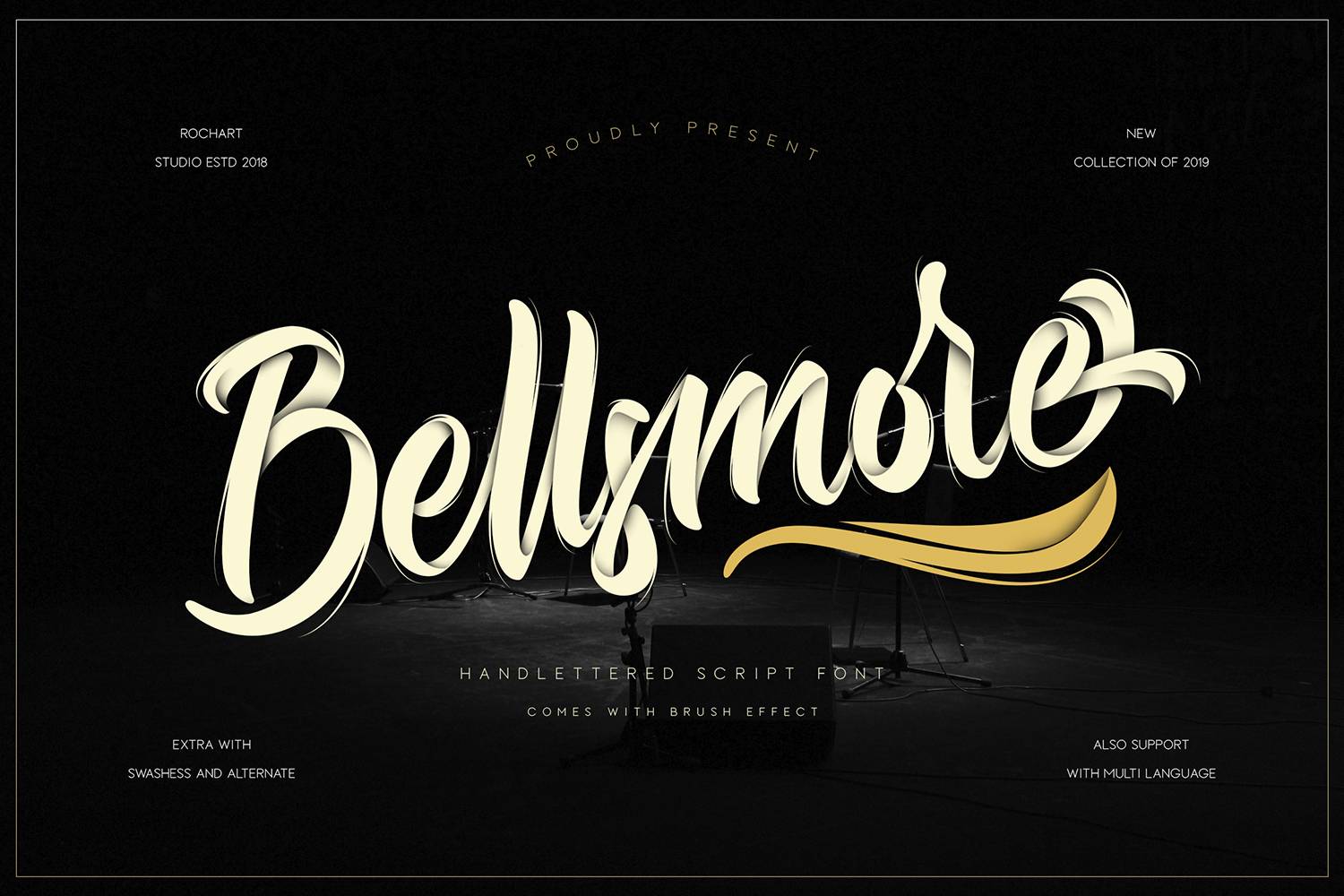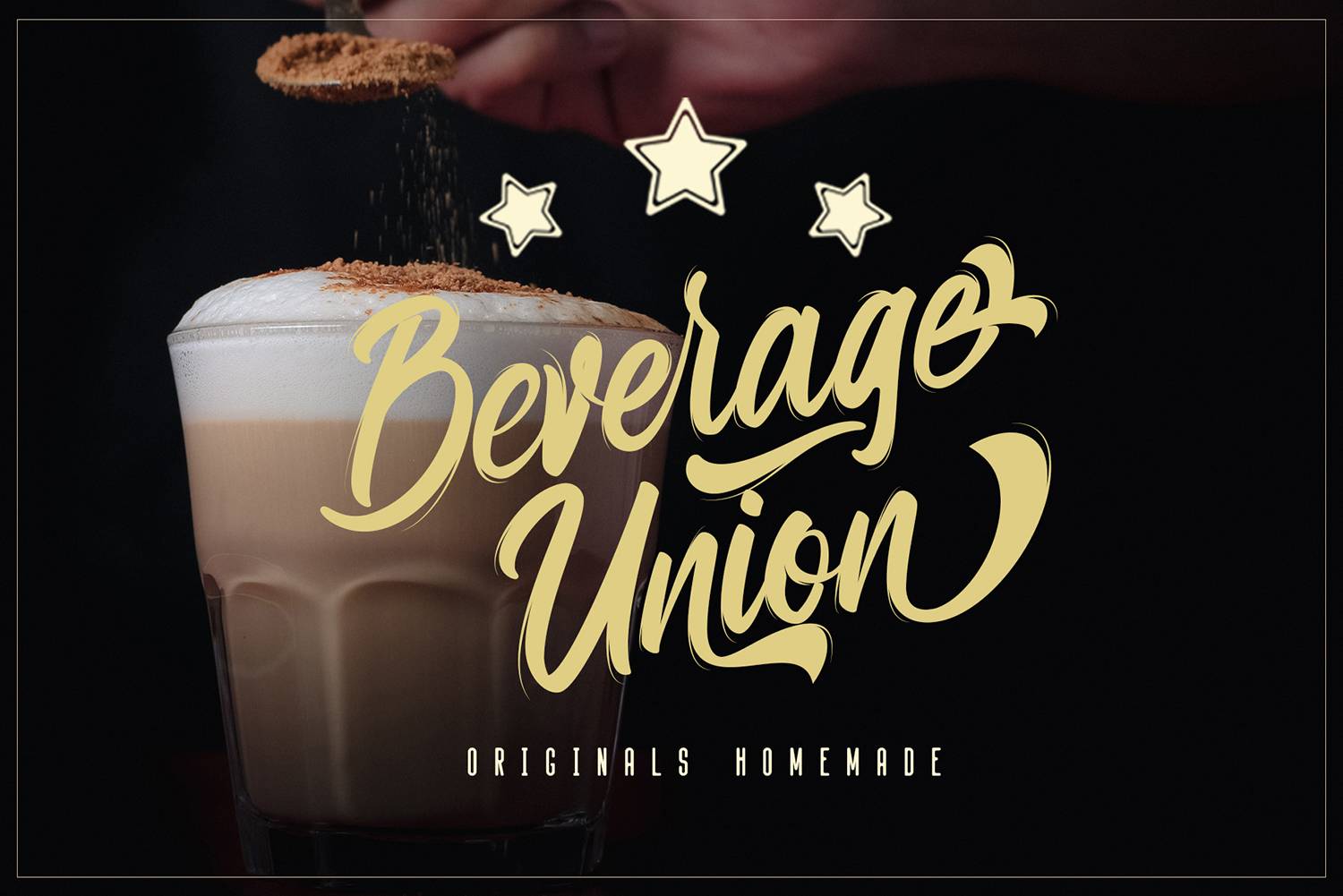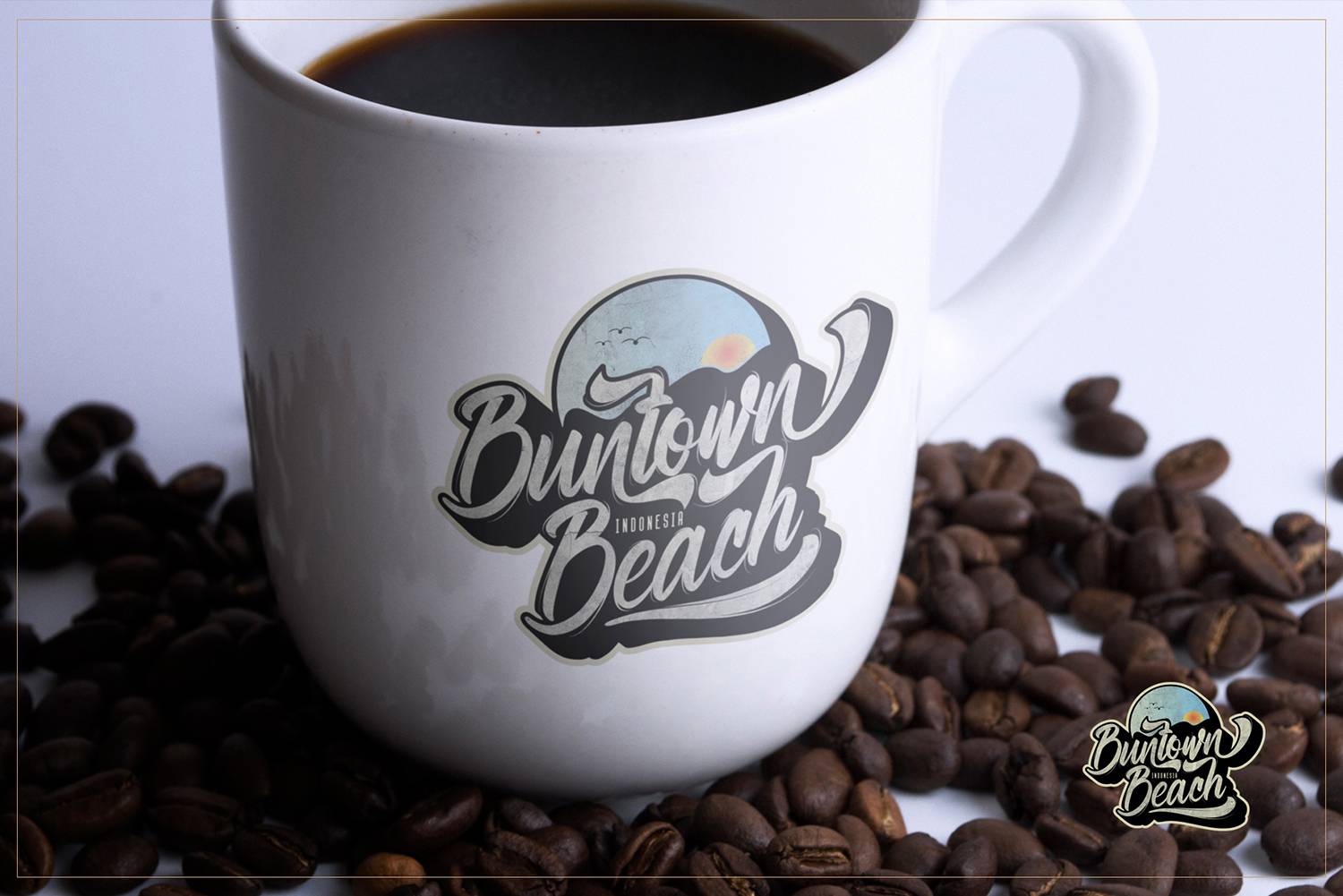
Bellsmore Brush is a lively and elegant script font with smooth, flowing strokes that mimic natural brush lettering. Its bold yet graceful style makes it perfect for adding a personal, artistic touch to branding, packaging, and headlines, conveying creativity and charm with a modern flair. This font works especially well where a dynamic and expressive feel is desired, such as in fashion or lifestyle projects.
Bellsmore Font
About Bellsmore Font